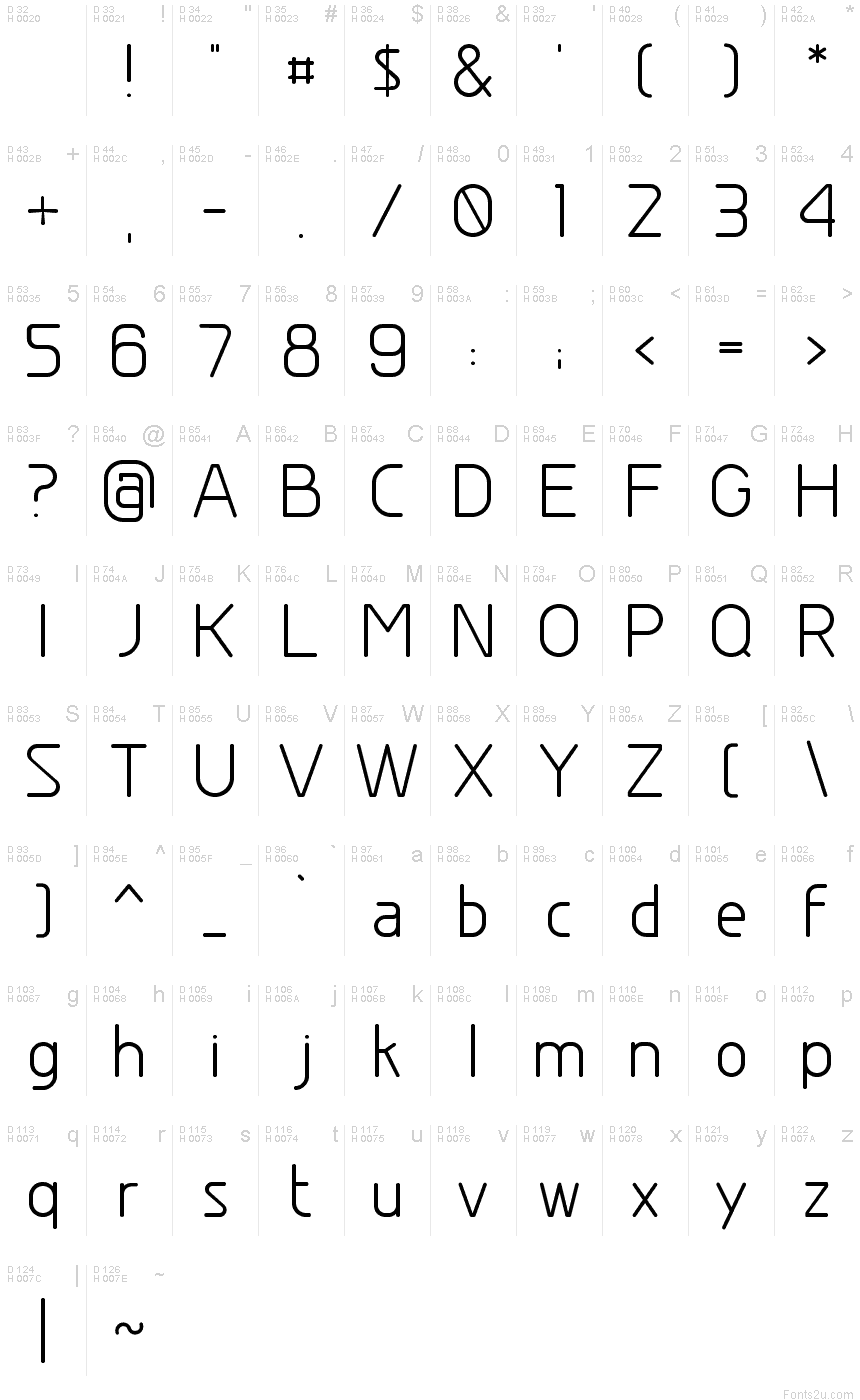
GreyscaleBasic
GreyscaleBasic by Greyscale of GreyscaleNet is a free light geometric sans serif with a calm, airy, and understated look. Its even strokes and broad circular curves soften the otherwise spare construction. Rounded line endings keep the lettering approachable.
A minimalist cosmetics package is a convincing setting, since the slender forms suggest care and restraint without looking clinical. In boutique branding, editorial design, and gallery signage, the open curves can become a recurring curved motif in small icons and borders.